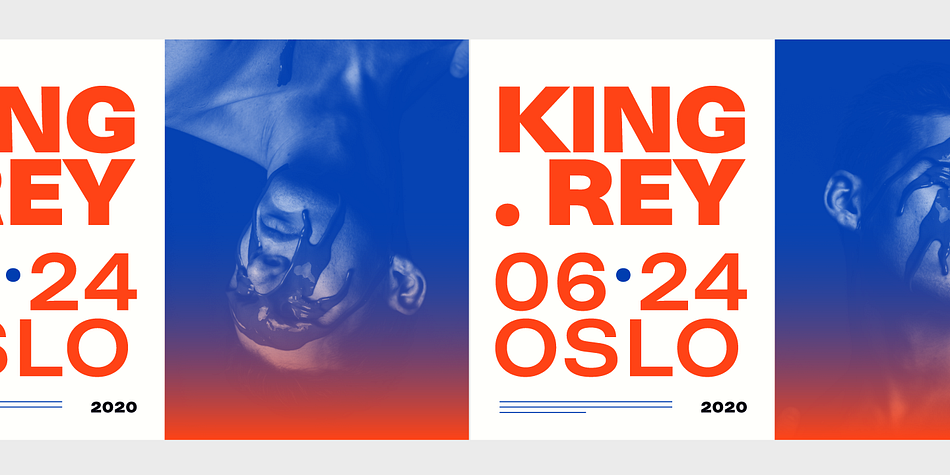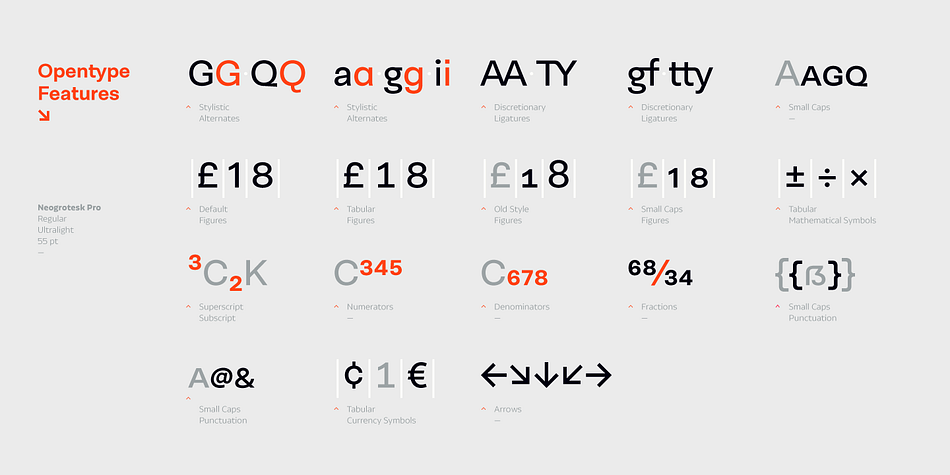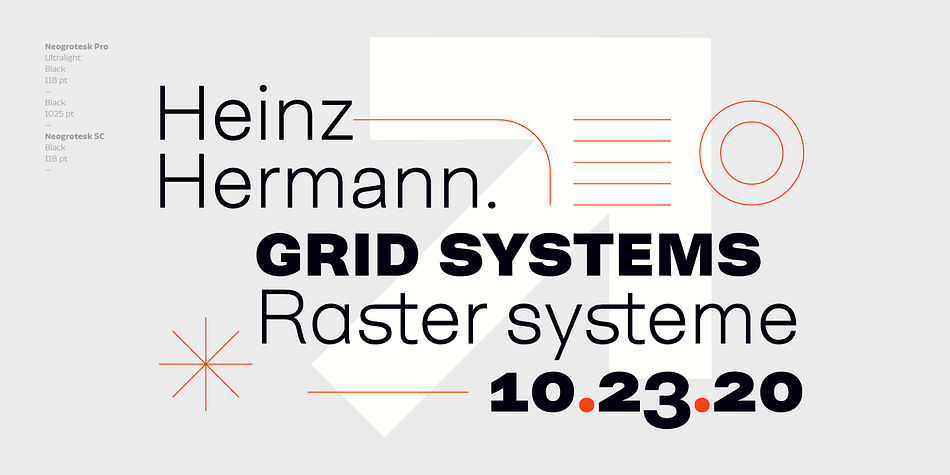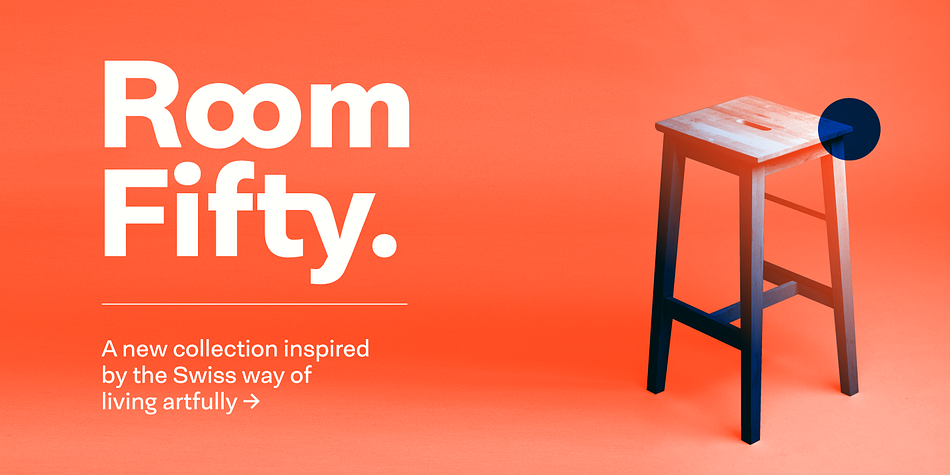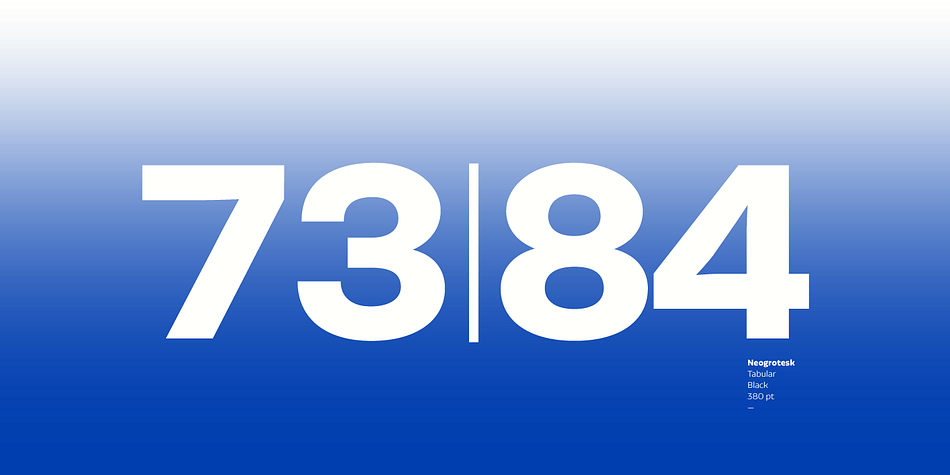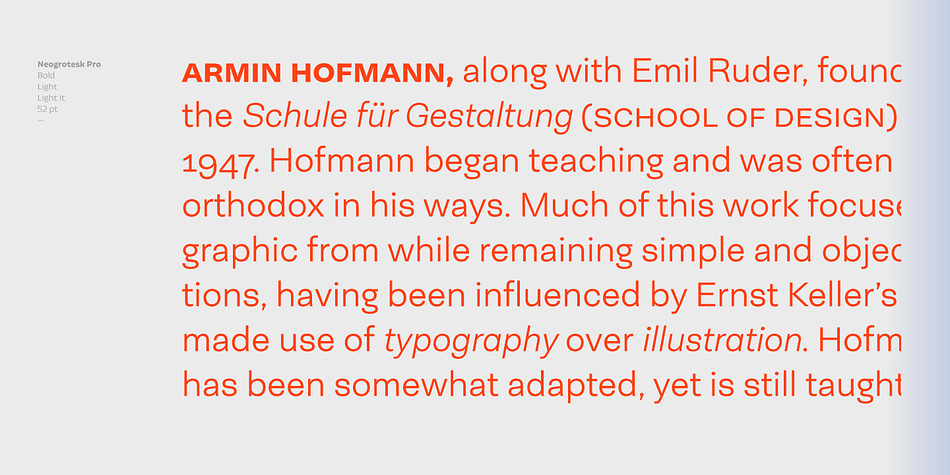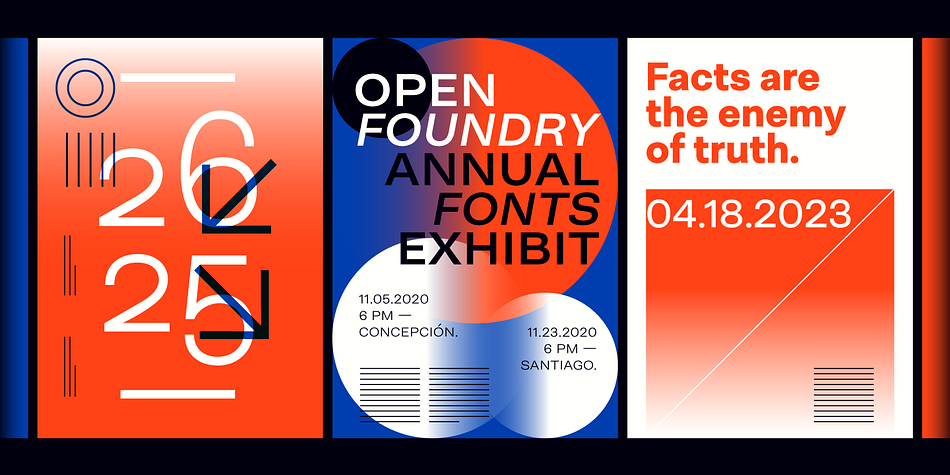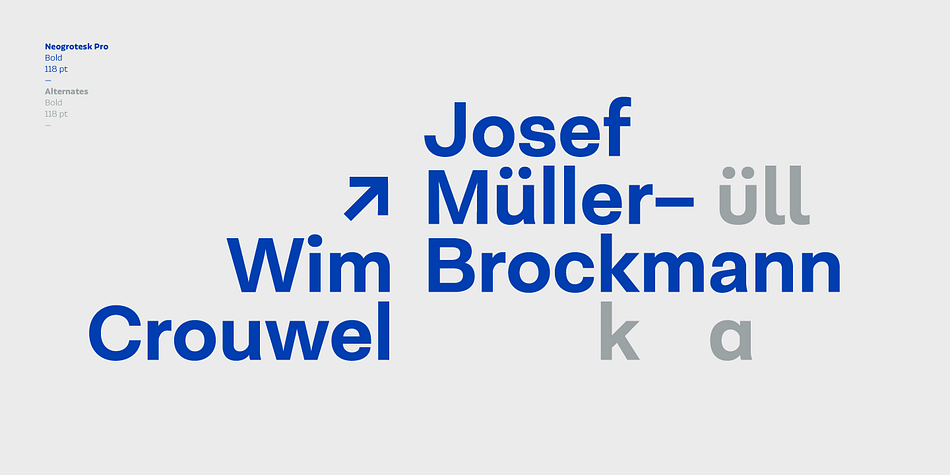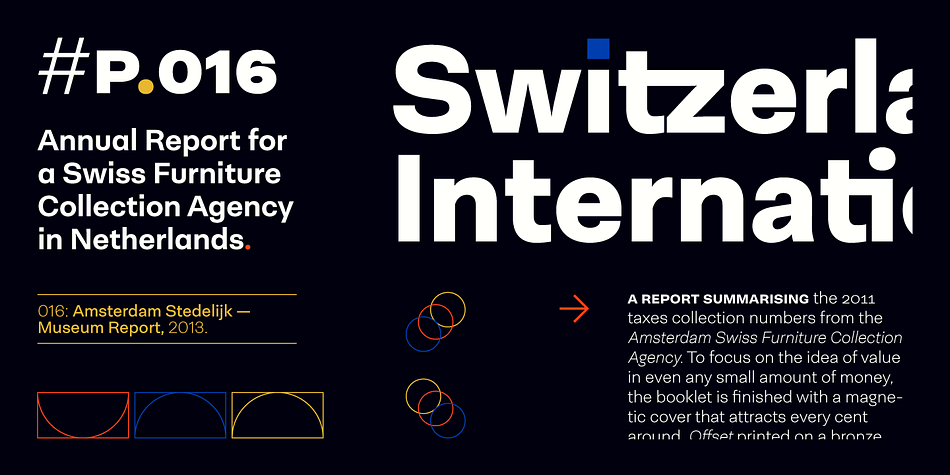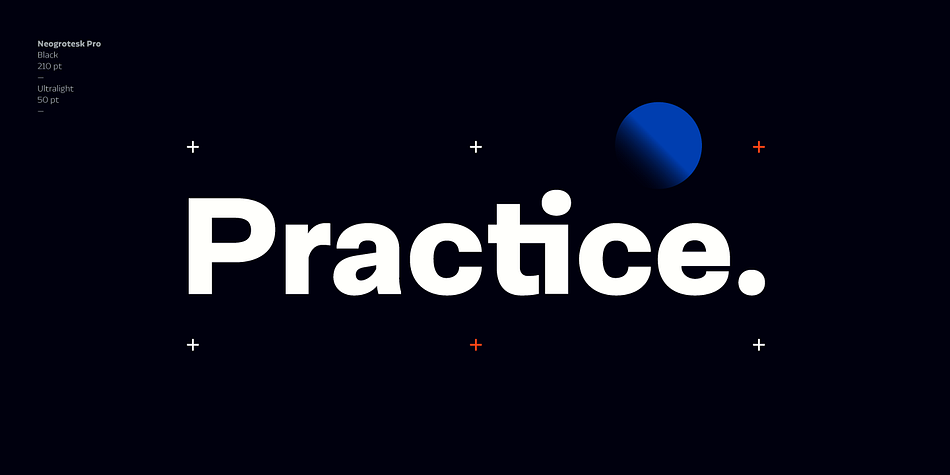
Designed by Luciano Vergara, Neogrotesk is a sans serif font family. This typeface has forty styles and was published by Los Andes Type.
Not of the Alps but from Los Andes. It tastes a lot more like wine than cheese.
Neogrotesk is a versatile and functional workhorse typeface with a neutral look and Latin flavor. The font includes multiple typographic features such as alternates, ligatures, small caps, case-sensitive punctuation, arrows as well as lining, old style and tabular figures.
Neogrotesk is the perfect choice for editorial, corporate and advertising design. This 40-style type comes in 5 weights with matching italics and contains 770 glyphs. The complete set consists of 4 sub-families: Essential, Essential Alt, Pro and Small Caps.